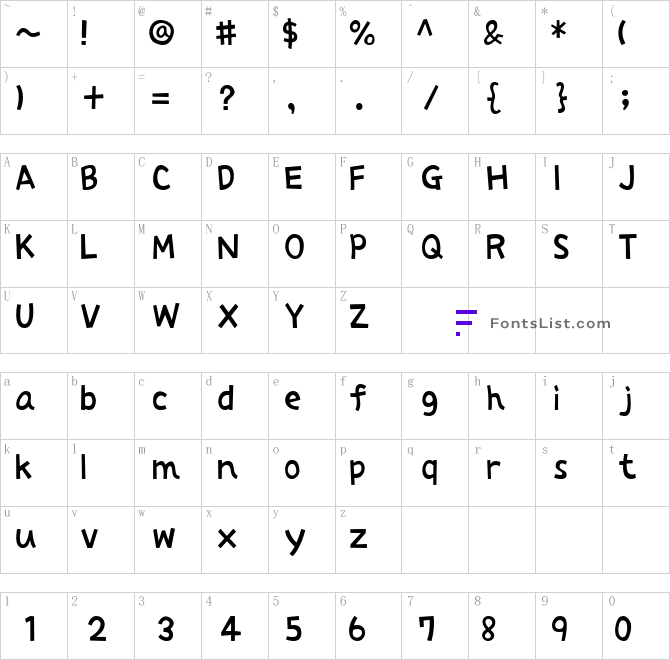
- Font Name:AprilFoolAL
AprilFoolAL.ttf is a very beautiful artistic font, AprilFoolAL.ttf is widely used in the design and printing of various books and pictures,AprilFoolAL.ttf has a strong visual impact,AprilFoolAL.ttf is a commonly used font in newspapers, magazines and books, and is used in posters, e-commerce Poster design, store design, logo design, font design and other fields.AprilFoolAL.